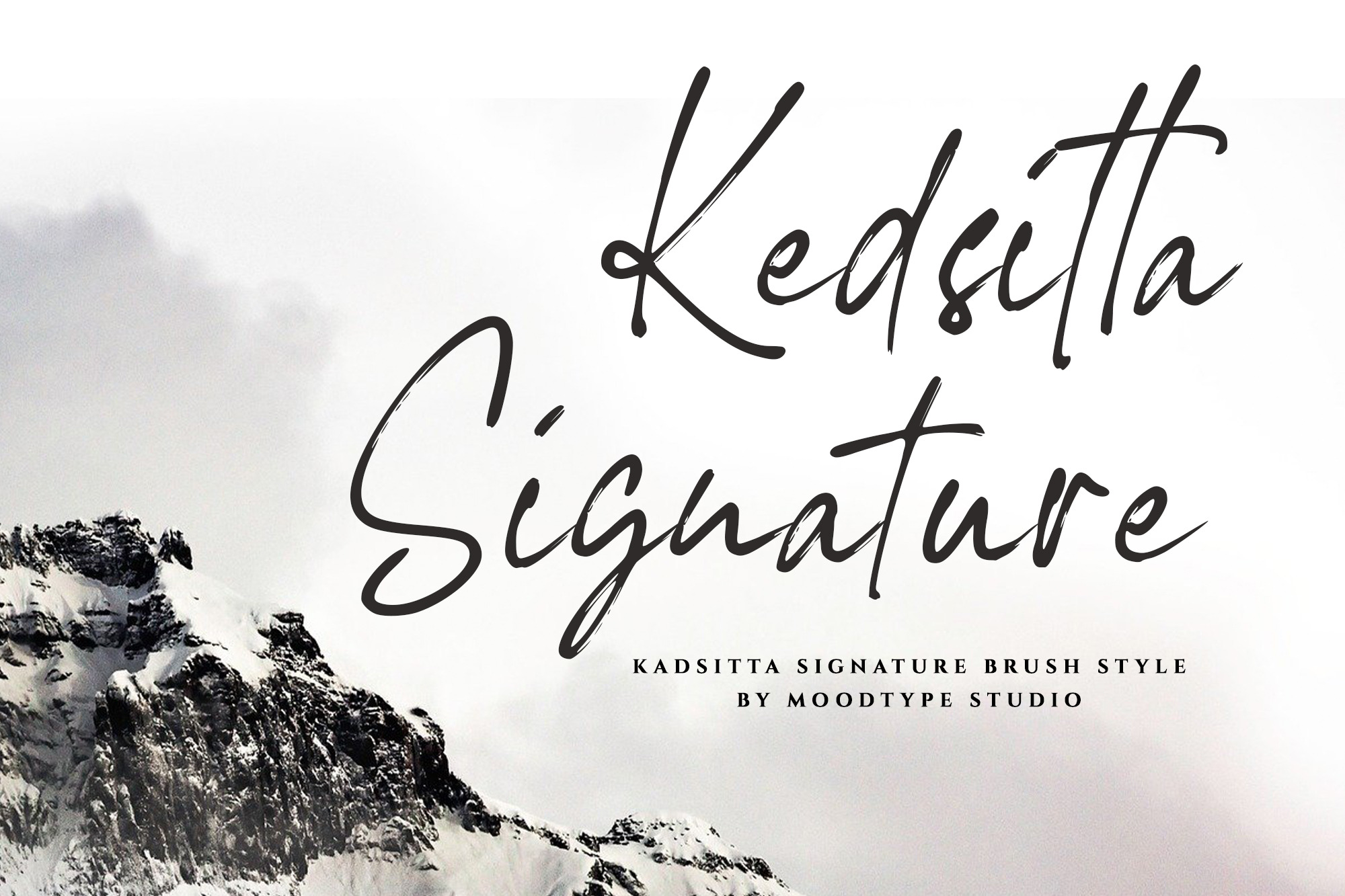
Kedsita Signature Font
Kedsitta Signature is perfect for branding projects, logo, wedding designs, social media posts, advertisements, product packaging, product designs, label, photography, watermark, invitation, stationery and any projects that need handwriting taste.